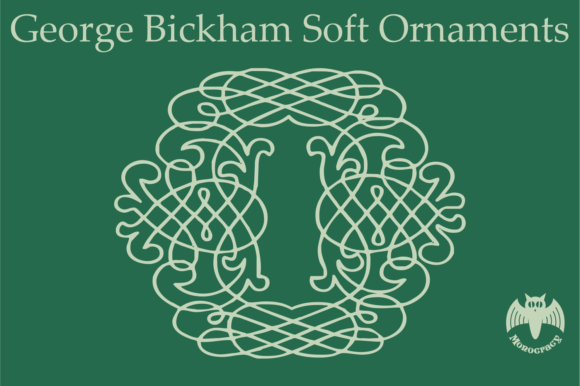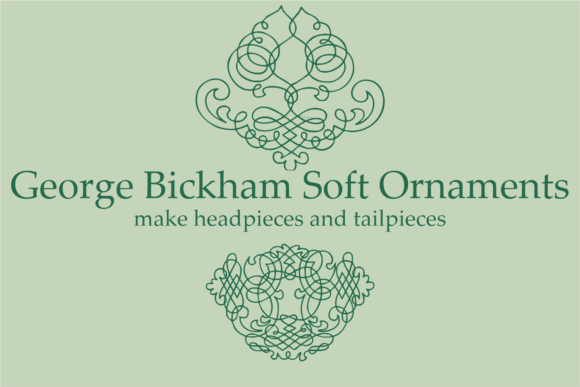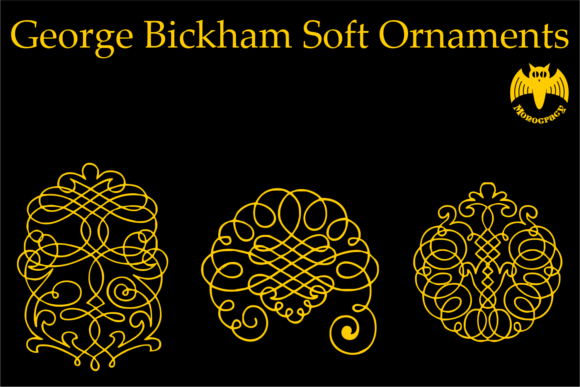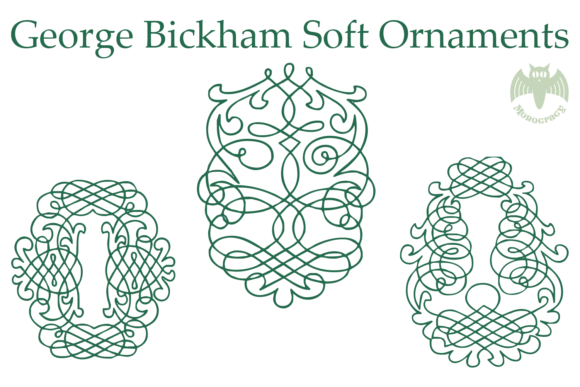
George Bickham Soft Ornaments Font
About George Bickham Soft Ornaments Font
George Bickham Soft Ornaments is indeed a remarkable set of well-crafted ornaments inspired by the renowned work of George Bickham in Universal Penman (1733). This dingbats font offers a range of elegant and sophisticated ornaments that can enhance your classic designs. Here are some reasons why George Bickham Soft Ornaments is a great addition to your design toolkit:
1. Classic Elegance: The ornaments in George Bickham Soft Ornaments exude a timeless and classic elegance. They are reminiscent of the ornate calligraphy and decorative elements found in the work of George Bickham. Adding these ornaments to your designs can instantly elevate the visual appeal and create a sense of refinement.
2. Versatile Ornamental Elements: George Bickham Soft Ornaments provides a wide array of ornamental elements to choose from. These include flourishes, frames, borders, decorative accents, and more. The versatility of these ornaments allows you to use them in various design contexts, such as invitations, certificates, book covers, and other classic-themed projects.
3. Attention to Detail: The meticulous craftsmanship and attention to detail in George Bickham Soft Ornaments are evident in each ornament. The intricate lines, delicate curves, and decorative motifs showcase the dedication to creating a high-quality font. Incorporating these detailed ornaments into your designs adds a level of finesse and sophistication.
4. Harmonious Complement to Typography: George Bickham Soft Ornaments can harmoniously complement typography in your designs. Whether you’re using them to embellish drop caps, create decorative borders around text, or highlight specific words or phrases, these ornaments can enhance the overall typographic composition. The combination of classic lettering and intricate ornaments creates a cohesive and visually appealing design.
5. Classic Design Projects: This dingbats font is particularly well-suited for classic design projects that require a touch of elegance and refinement. It can be applied to various design applications, such as wedding invitations, formal stationery, logo designs, certificates, and more. The ornamental elements in George Bickham Soft Ornaments enhance the visual impact and create a sense of timeless beauty.
6. Historical Inspiration: George Bickham Soft Ornaments pays homage to the historical significance of George Bickham’s work in calligraphy and lettering. By utilizing these ornaments, you connect your designs to a rich tradition of classic and ornate typography. This historical inspiration adds depth and meaning to your projects, appealing to those who appreciate the beauty of traditional craftsmanship.
Incorporating George Bickham Soft Ornaments into your classic designs allows you to leverage the classic elegance, versatility, and attention to detail found in the work of George Bickham. By doing so, you can instantly elevate the quality and visual impact of your designs, creating a sense of refinement and sophistication.